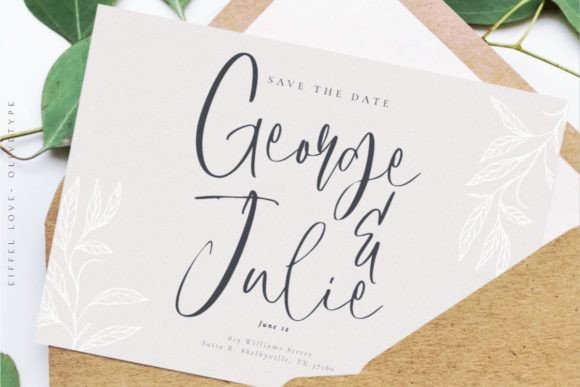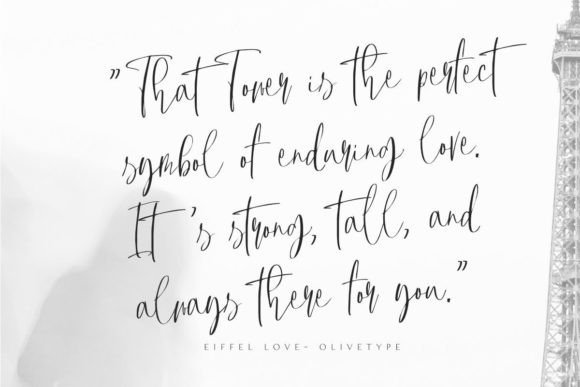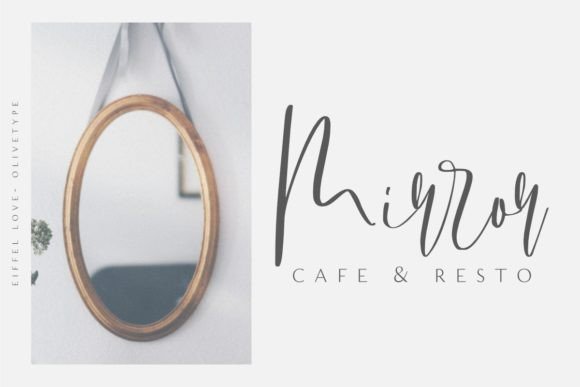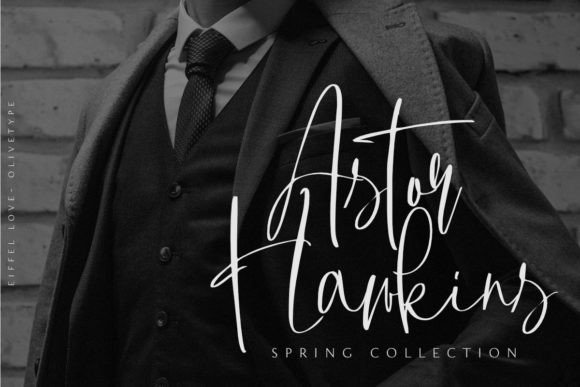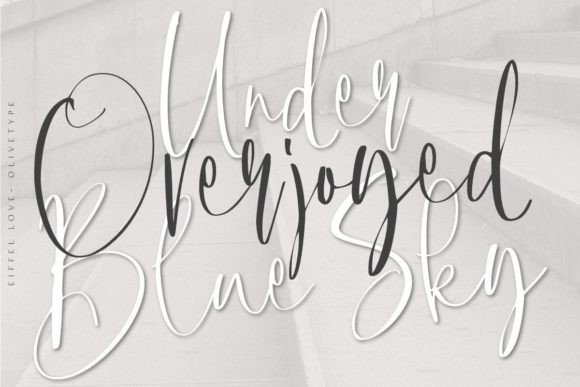
Eiffel Love Font
About Eiffel Love Font
Introducing “Eiffel Love,” a fun and playful script font designed to bring a touch of romance to your creative projects. This font is crafted with a playful charm that makes it suitable for a variety of applications, including branding, product packaging, headlines, and anything that calls for a romantic and whimsical look and feel.
The fun and playful characteristics of “Eiffel Love” are evident in its script style, which exudes a lighthearted and carefree vibe. This makes it a delightful choice for projects that aim to capture the spirit of romance and joy.
In branding, “Eiffel Love” can add a distinctive and memorable touch. Whether applied to logos or other branding elements, the font’s playful script style contributes to creating a unique and visually appealing brand identity.
For product packaging, the font brings a sense of charm and whimsy. Its playful script can enhance the overall visual presentation, making your products stand out with a romantic and inviting feel.
In headlines and titles, “Eiffel Love” becomes a focal point, drawing attention and conveying a romantic look and feel. This makes it suitable for a variety of design contexts where a touch of playfulness is desired.
The versatility of “Eiffel Love” extends to its adaptability for different projects, ensuring that it can seamlessly integrate into various design applications while maintaining its romantic and whimsical appeal.
In summary, “Eiffel Love” is more than just a font; it’s a design tool that infuses fun and romance into your creative projects. Whether used for branding, product packaging, headlines, or other applications, this playful script font adds a delightful and charming element to your designs. Embrace the whimsical spirit of “Eiffel Love” as you bring a touch of romance to your creative endeavors.